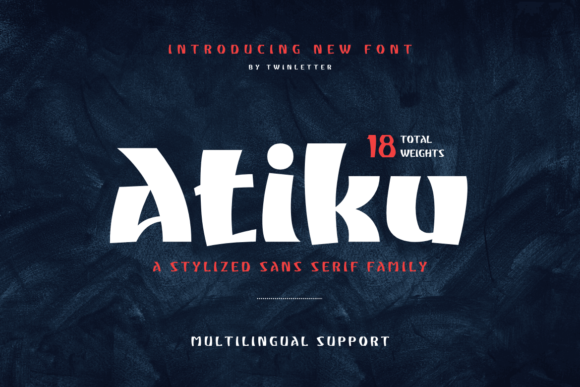
The Designer’s Delight: Unleashing the Power of Atiku Font
I’ll never forget the time I was working on a vintage-themed project for a client, and I just couldn’t find the right font to bring it all together. The design was almost there, but it was missing that one special something to make it pop. That’s when I stumbled upon Atiku Font, and let me tell you, it was love at first sight! 😍
Atiku is a cool, bold, and vintage-styled display font that’s perfect for adding a touch of personality to your creations. In this article, I’ll share my honest review of Atiku, provide a step-by-step guide on how to use it on different platforms, and explore some similar fonts you might love.
What I Love About Atiku Font
- ✨ Unique vintage vibe: Atiku has a distinct retro feel that’s perfect for creating eye-catching designs.
- ✅ Highly legible: Despite its bold and ornate style, Atiku is surprisingly easy to read, even in smaller sizes.
- 💥 Versatile: This font can be used for a wide range of projects, from posters and flyers to social media graphics and branding.
While Atiku is an amazing font, it’s not without its quirks. For example:
- 🤔 Limited use in body text: Due to its bold and ornate style, Atiku might not be the best choice for longer blocks of text.
- ⚠️ Some glyphs may not work well in all contexts: As with any font, it’s essential to test Atiku thoroughly to ensure it works well with your specific design.
The Story Behind Atiku Font
Atiku was designed by a team of creatives who wanted to create a font that would capture the essence of vintage design. Inspired by classic posters, advertisements, and logos from the 1950s and 60s, Atiku is a modern take on a retro classic.
A: Atiku is a cool, bold, and vintage-styled display font perfect for adding personality to your designs.
A: While Atiku is highly legible, it’s best used for headlines, titles, and short blocks of text due to its bold and ornate style.